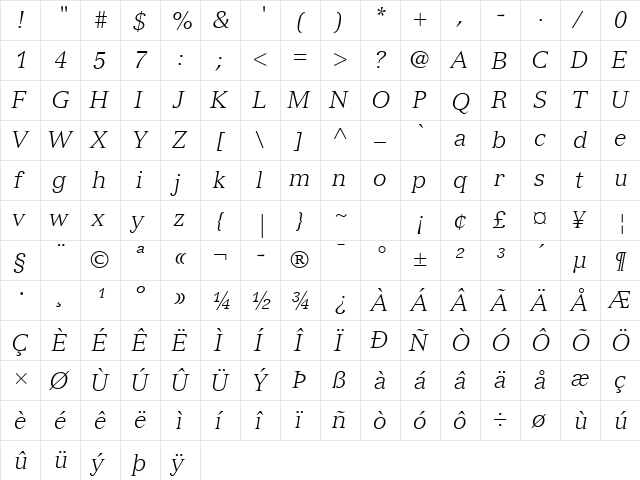
Versailles LT Com 46 Light Italic
| Foundry | Linotype GmbH |
| Designer | Adrian Frutiger |
Design Context for Versailles LT Com Typeface
Versailles LT Com offers clean, dependable letterforms without strong stylistic allegiance, making it a practical choice for designers who need flexibility. The dynamic lean of this cut emphasises speed and emphasis in any layout. Its slender proportions lend an understated elegance to any composition.